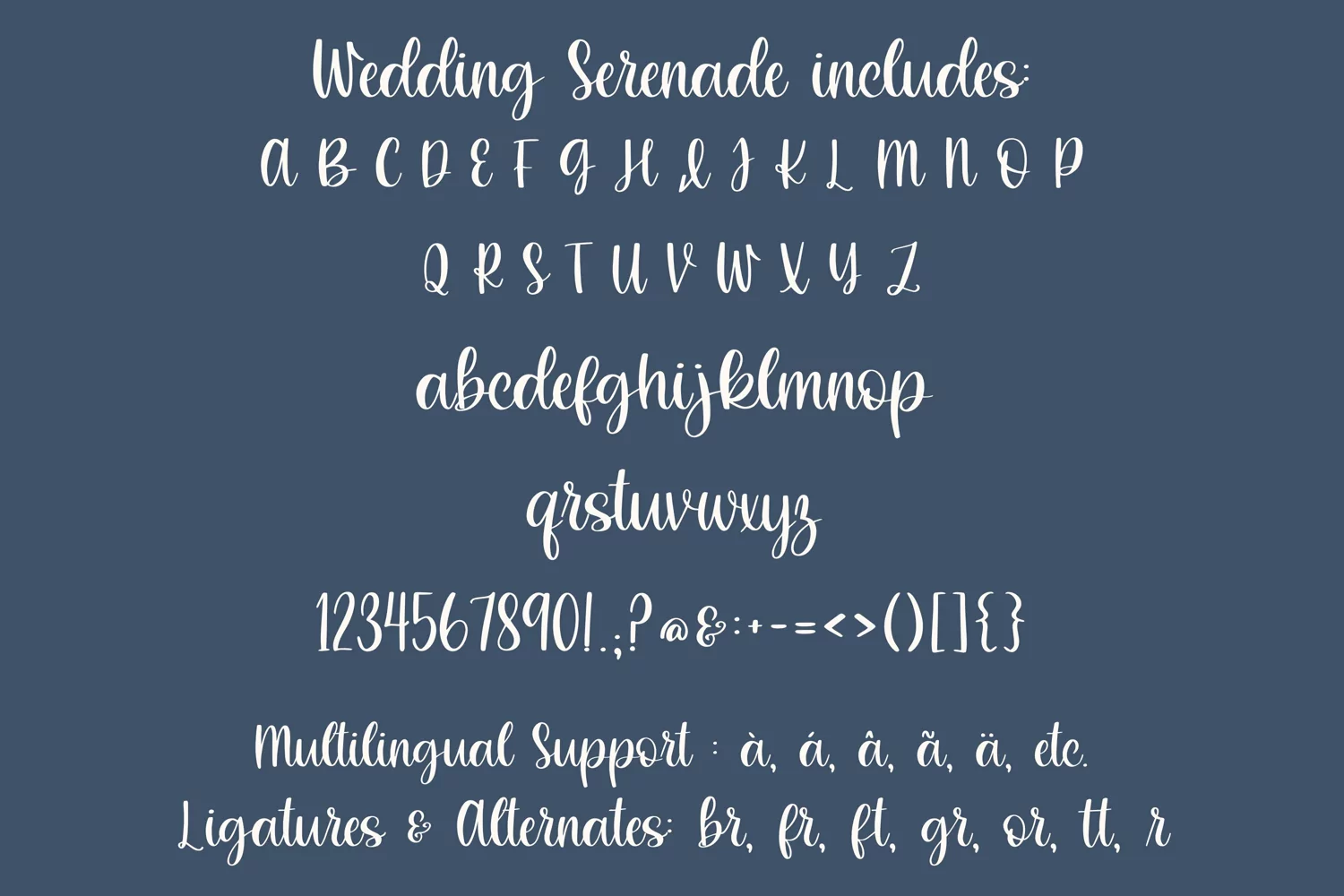
Wedding Serenade, An Elegant Handwritten Script for Cricut
Introducing Wedding Serenade, and elegant handwritten script font for Cricut & more, perfect for all your creative projects! Whether you're a Cricut enthusiast or simply looking for a charming cursive font, this handwriting font brings a delightful touch to wedding invitations, greeting cards, and personalized crafts. Our script font is compatible with Cricut SVGs, Goodnotes, Procreate, and many other programs. Transform your designs into stunning works of art with our versatile Cute Script Font, the ultimate choice for anyone seeking a captivating and expressive typeface for their projects.